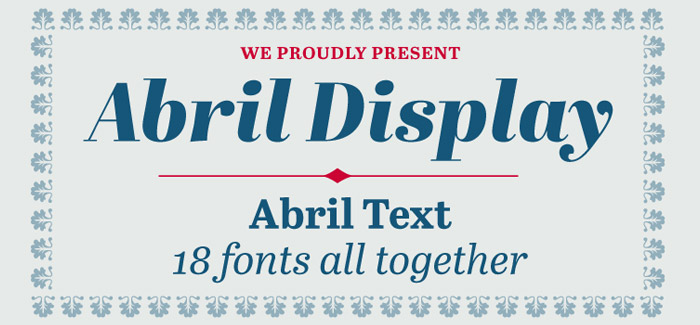
Abril font
Abril font is conceived specifically for intensive editorial use, whether it is in newspapers, magazines or digital media. The titling weights, based on a contemporary revamp of classic Didone styles, display both neutrality and strong presence on the page, attracting the reader’s attention with measured tension in its curves, good color and high contrast. It also features typographic niceties such as ornaments, borders, special dingbats and alternate letters and numbers that propose a broad palette of tools to the designer.
The text weights are more closely inspired by both, 19th century slab serifs and scotch roman types. They maintain consistency with the headline styles, and at first glance may appear to have the same shapes only with lower contrast. However, in reality the letter forms of Abril Text were engineered from scratch to achieve a color, texture and overall width that allow using the font comfortably in the most challenging environments for continuous reading, such as newspapers. This also makes it a great font family for pocketbooks and magazines. Abril competes, in terms of economy of space, head to head with some newspaper classics such as Utopia or Nimrod, but featuring a more contemporary look and feel; and unlike them, includes a full set of small caps with numbers and punctuation.
The four main text weights of Abril Text were also manually hinted which grants the possibility of a smooth transition from printed media to web platform.
Abril font consists of 8 text styles and 12 display styles, all of them containing the standard TypeTogether character set that supports over 50 languages including those from Central and Northern Europe.